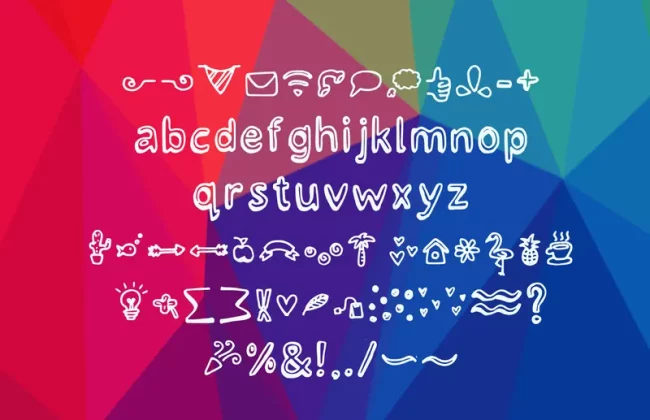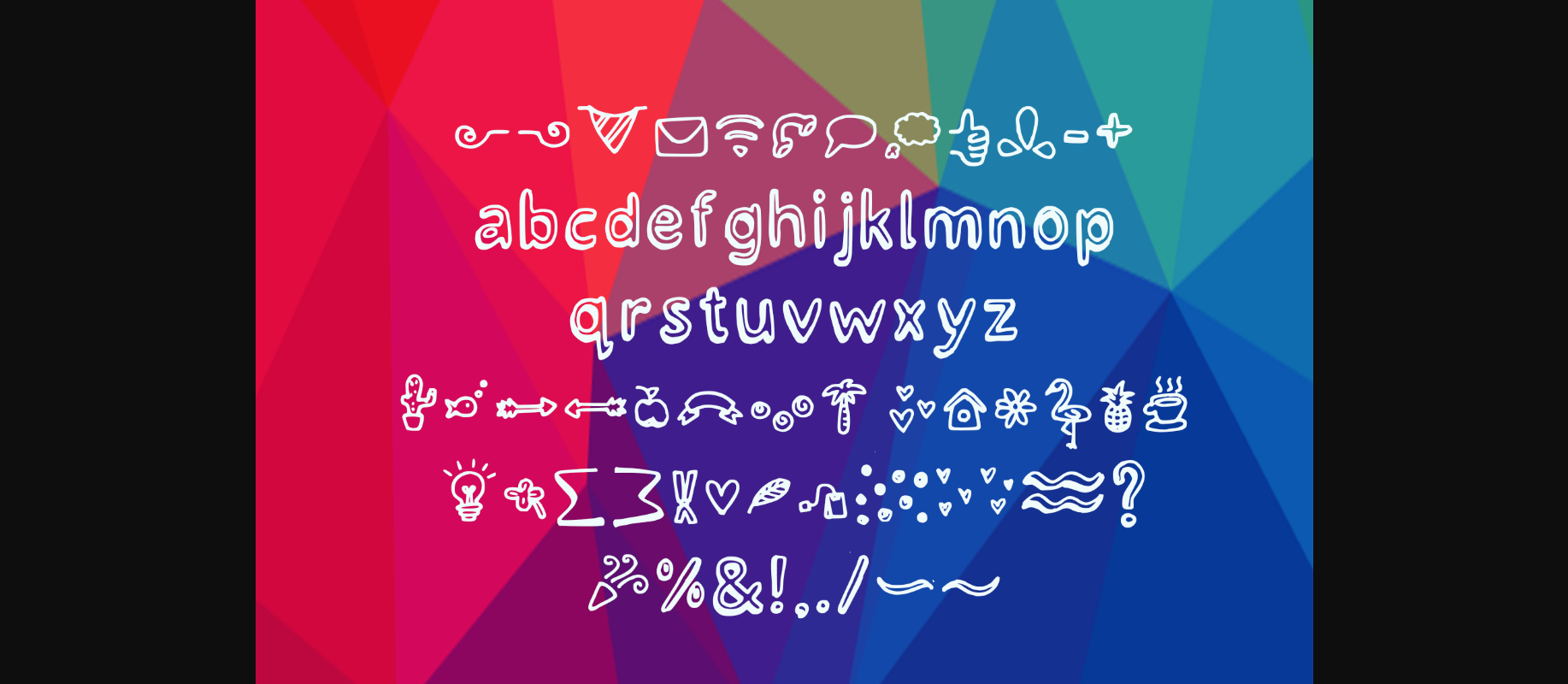
Crazy Icons Font
About Crazy Icons Font
Handdrawn icons. A broad variety of fun doodles. Always useful, if it is for your website or a personal creation. The best icon set you can get! Do I need to say more? Get them now!